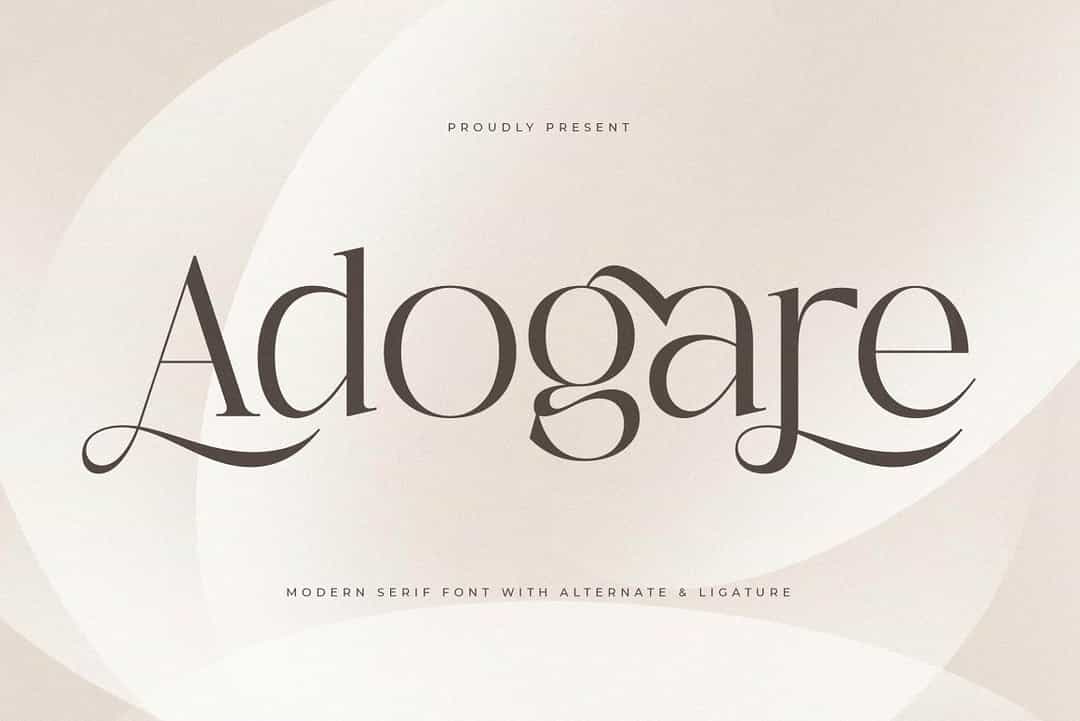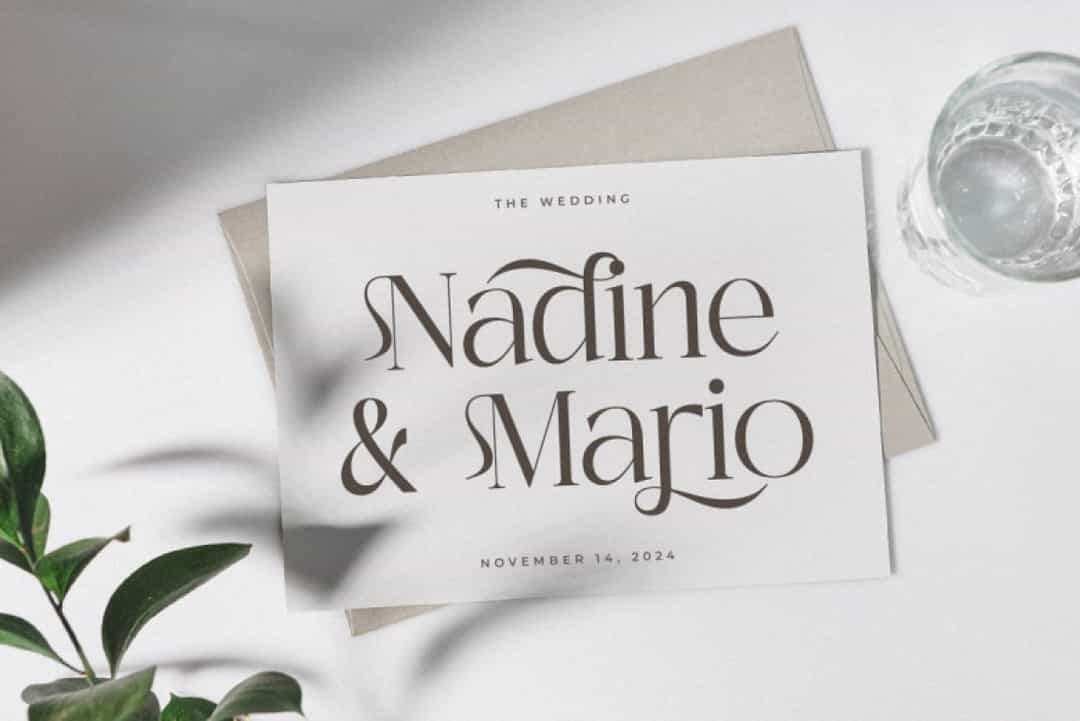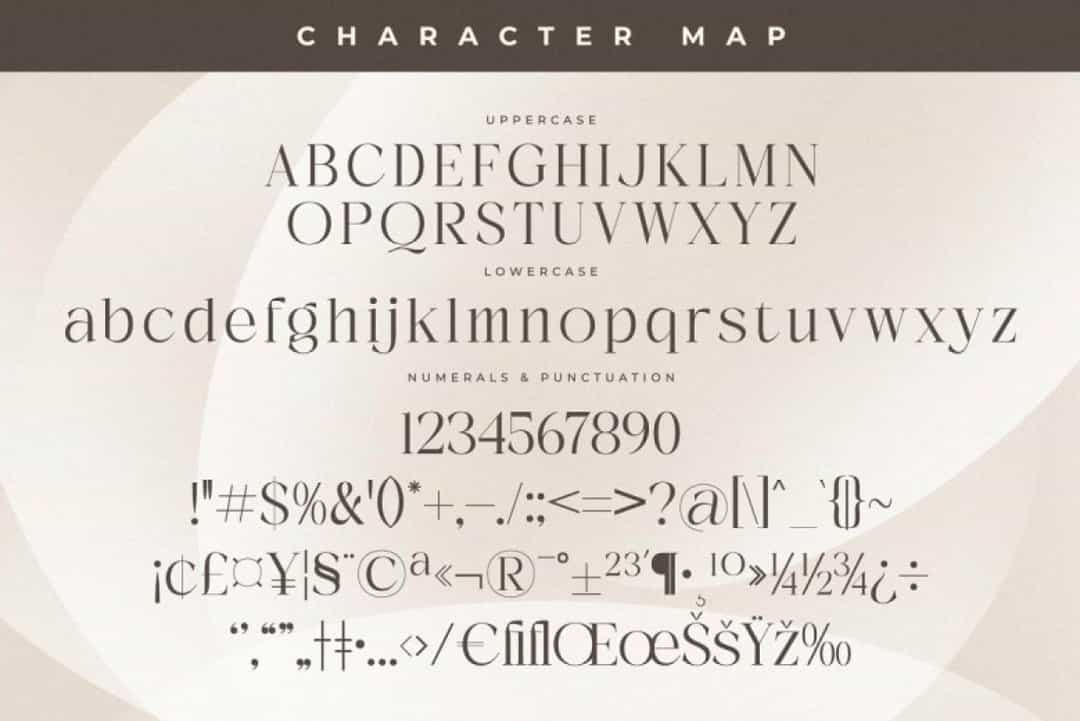
Storytype’s Adogare Font, is an elegant and timeless serif typeface with its own distinct style and look, perfect for creating sophisticated logos, movie or book styles, fashion label clothing designs, magazines letters and quotes and much more.